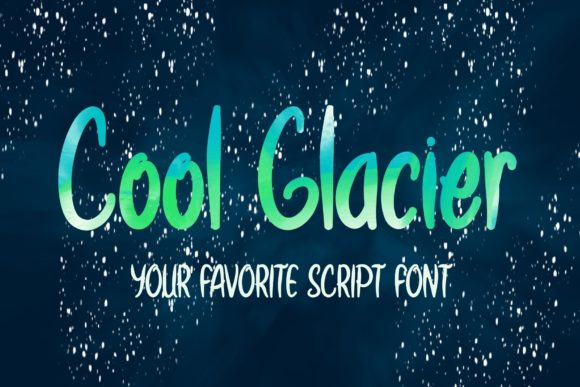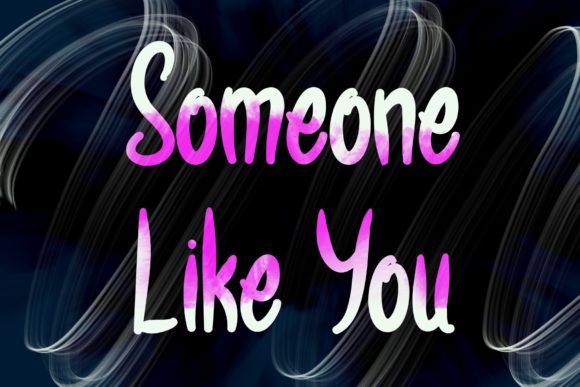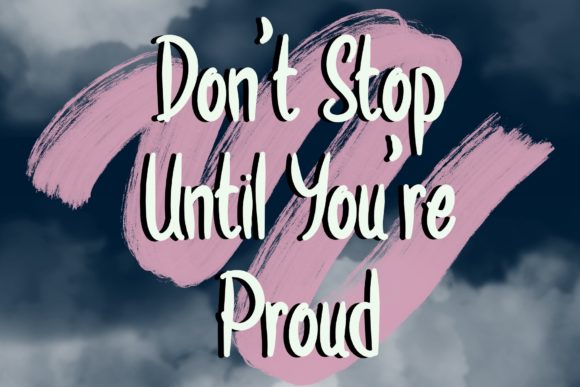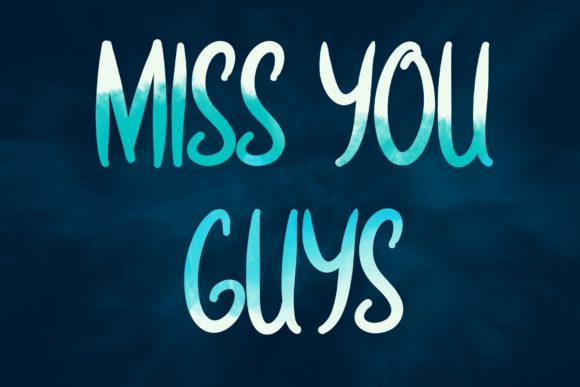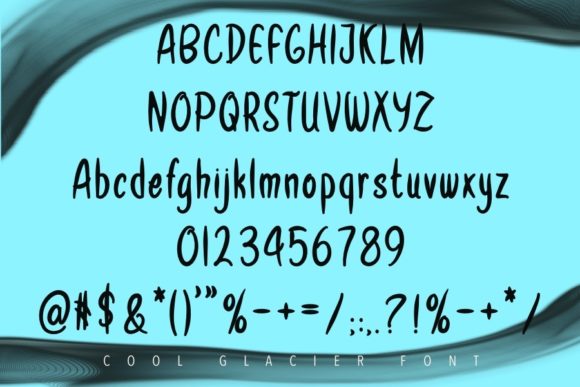
Cool Glacier Font
About Cool Glacier Font
Cool Glacier is a sweet and friendly handwritten font. Its natural and unique style makes it incredibly fitting to a large pool of designs.